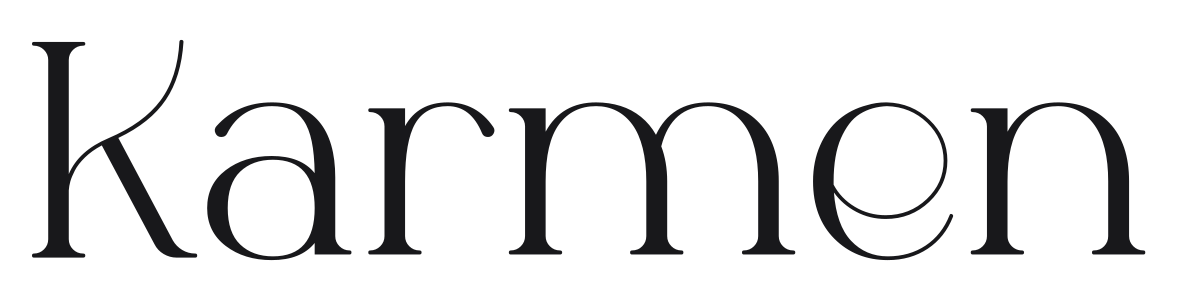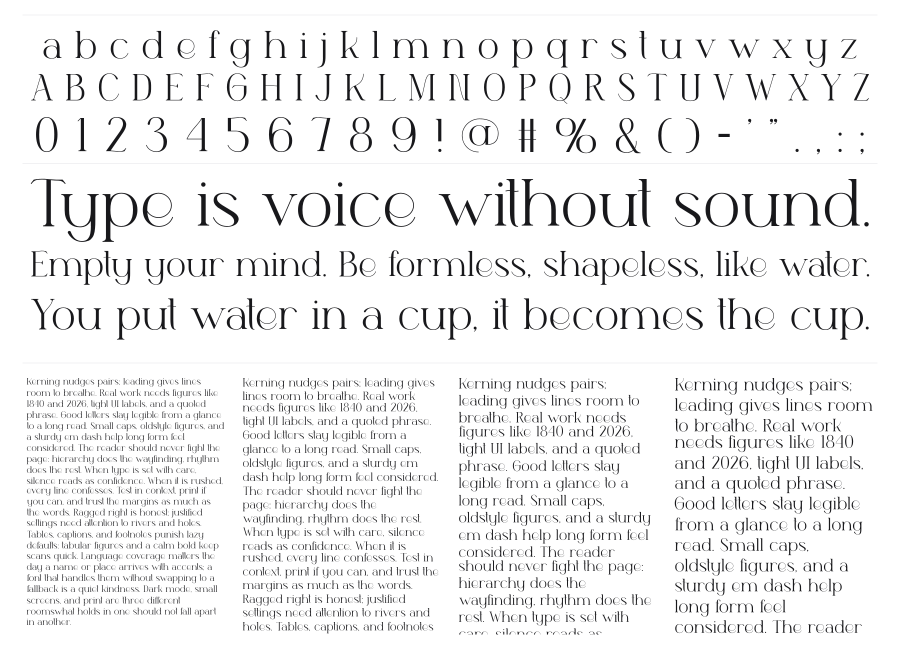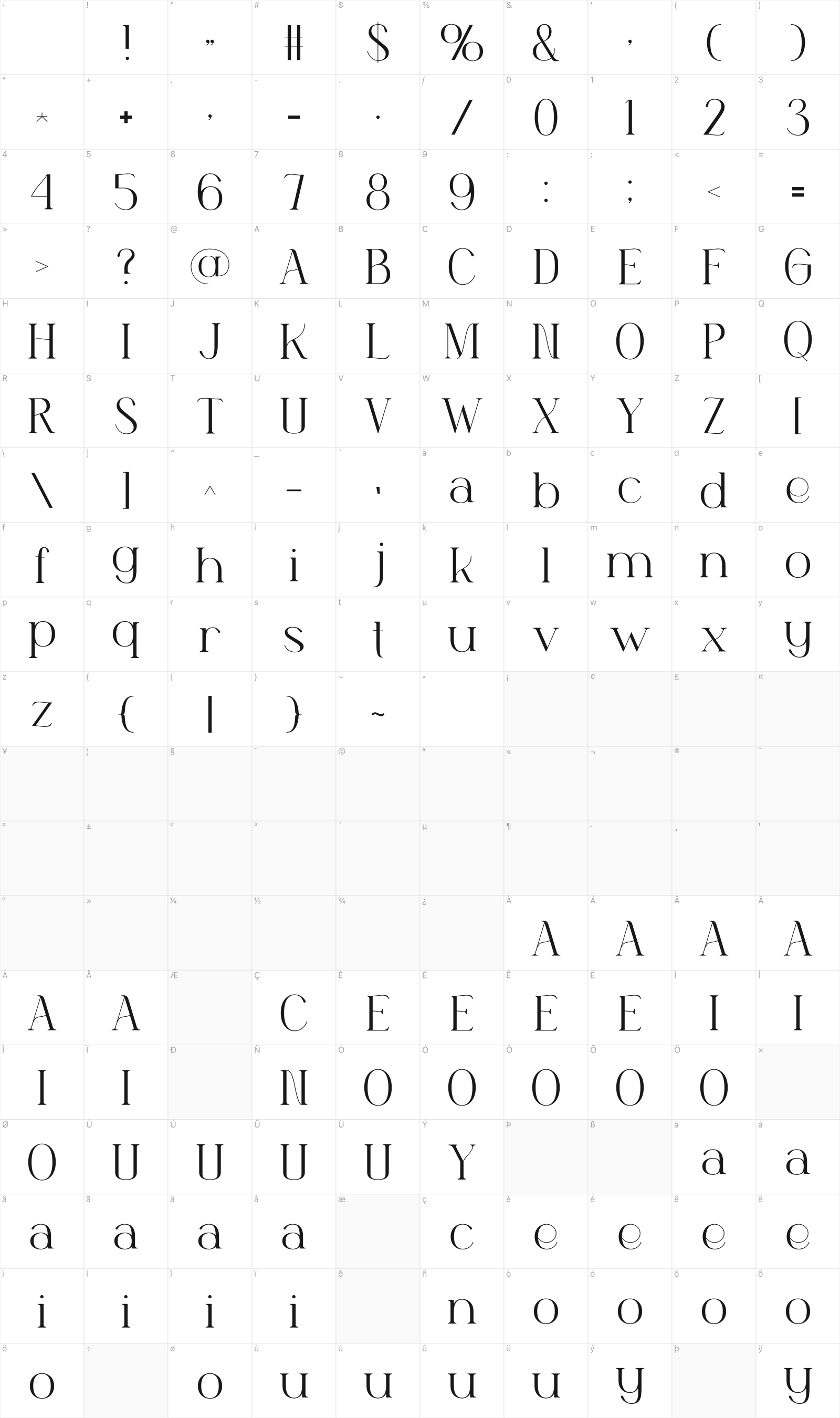
Karmen
Karmen is a high-contrast modern serif rooted in the Didone tradition, with dramatic hairline strokes set against full-bodied stems. The generous letter spacing and airy weight give it a refined, editorial presence that reads as effortlessly luxurious at large sizes. It belongs squarely in the visual language of high fashion, beauty, and upscale branding.